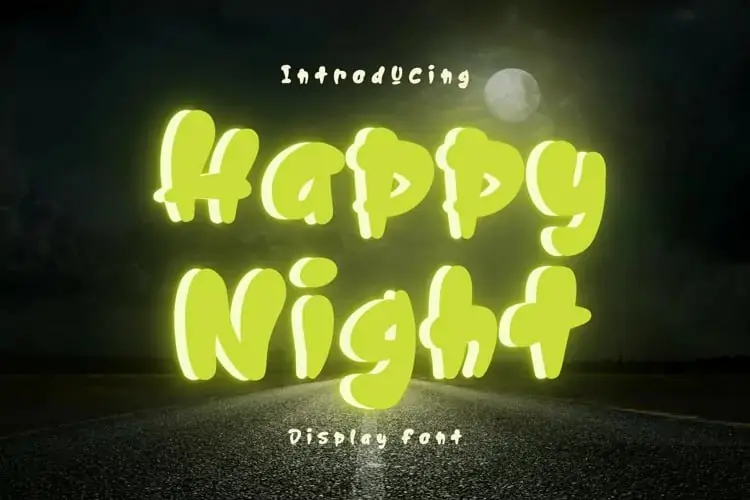
Happy Night Is A Cool Display Font By Brown Cupple Typeface
Introducing Happy Night, a unique display font designed by Brown Cupple Typeface. This font captures a playful and modern aesthetic, making it perfect for a variety of creative projects.
• Distinctive display style
• Uppercase and lowercase characters
• Available in multiple weights
• Style: Display